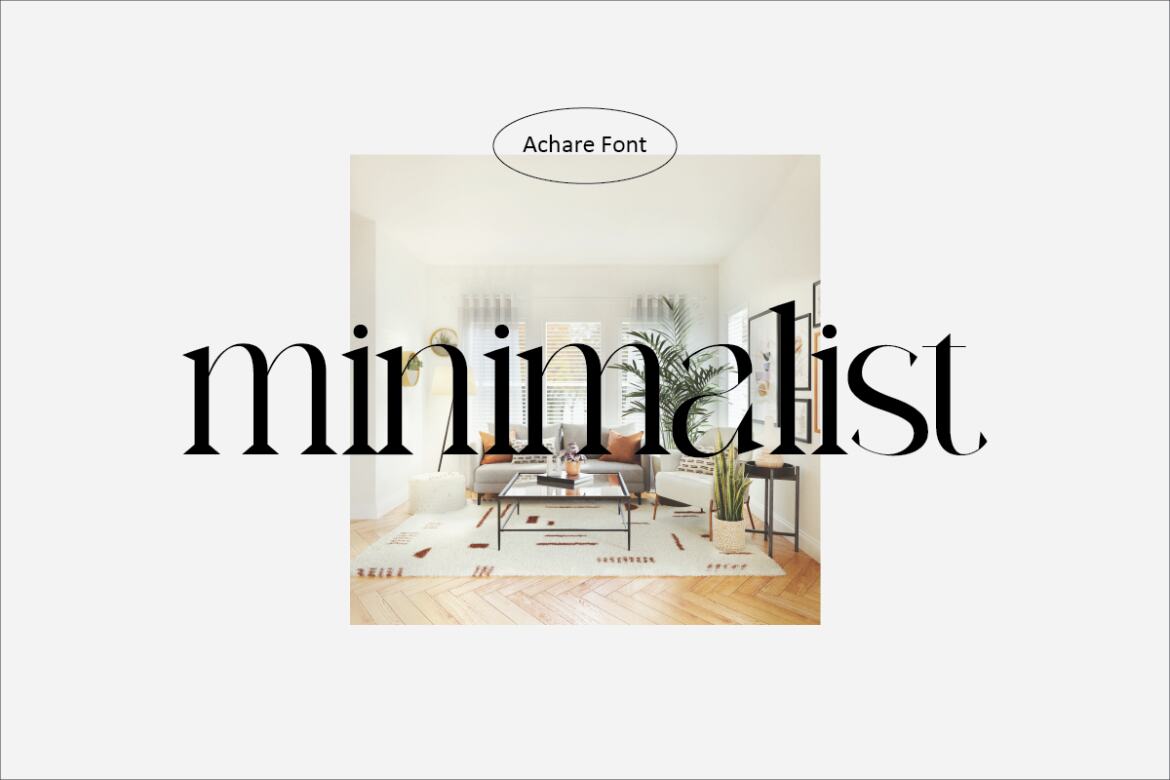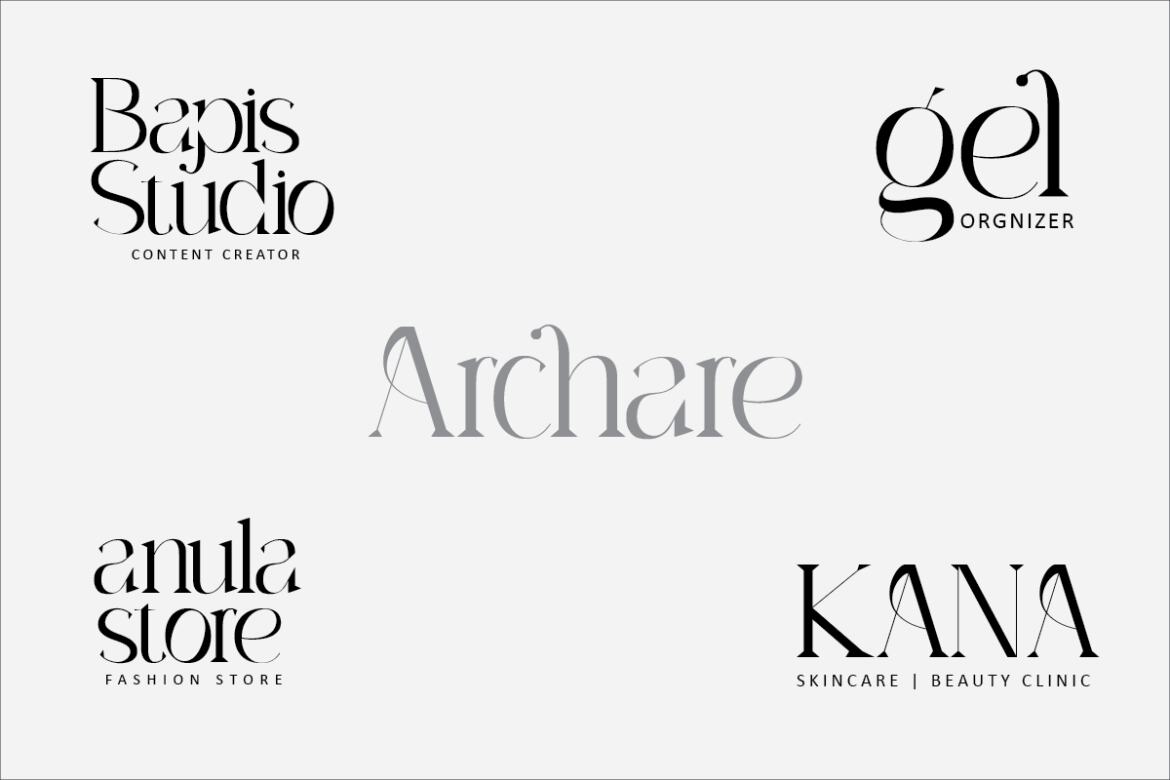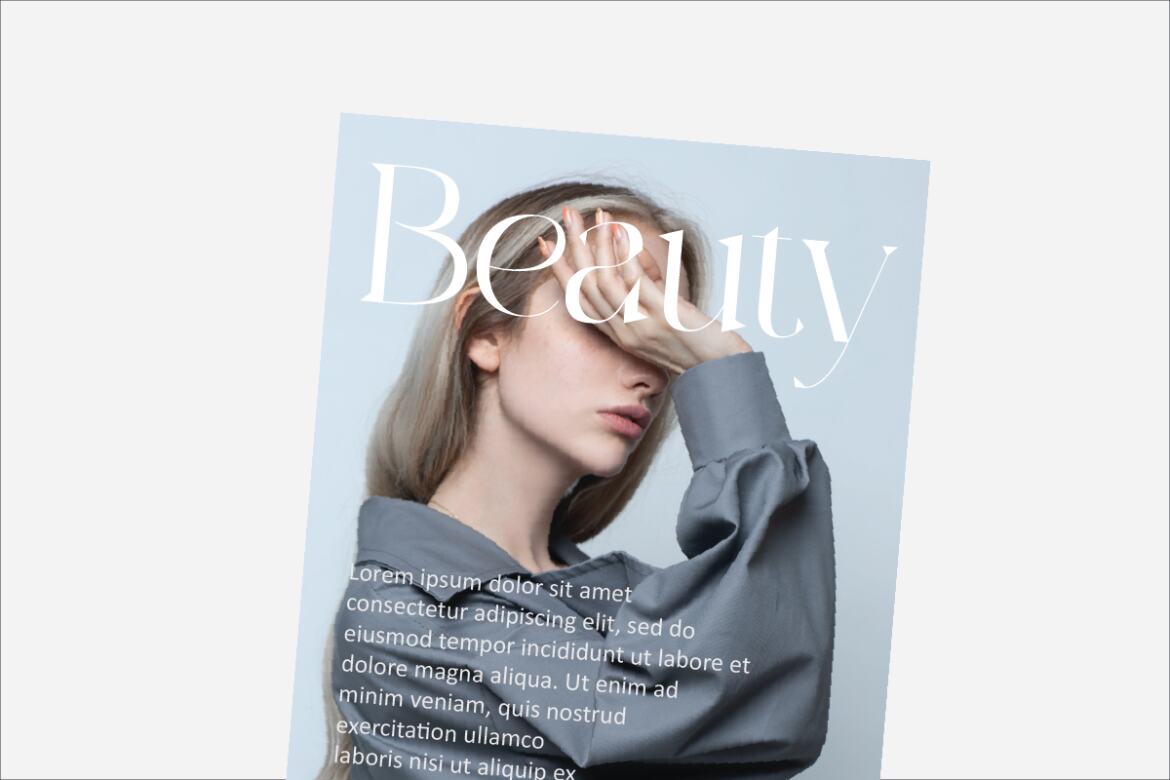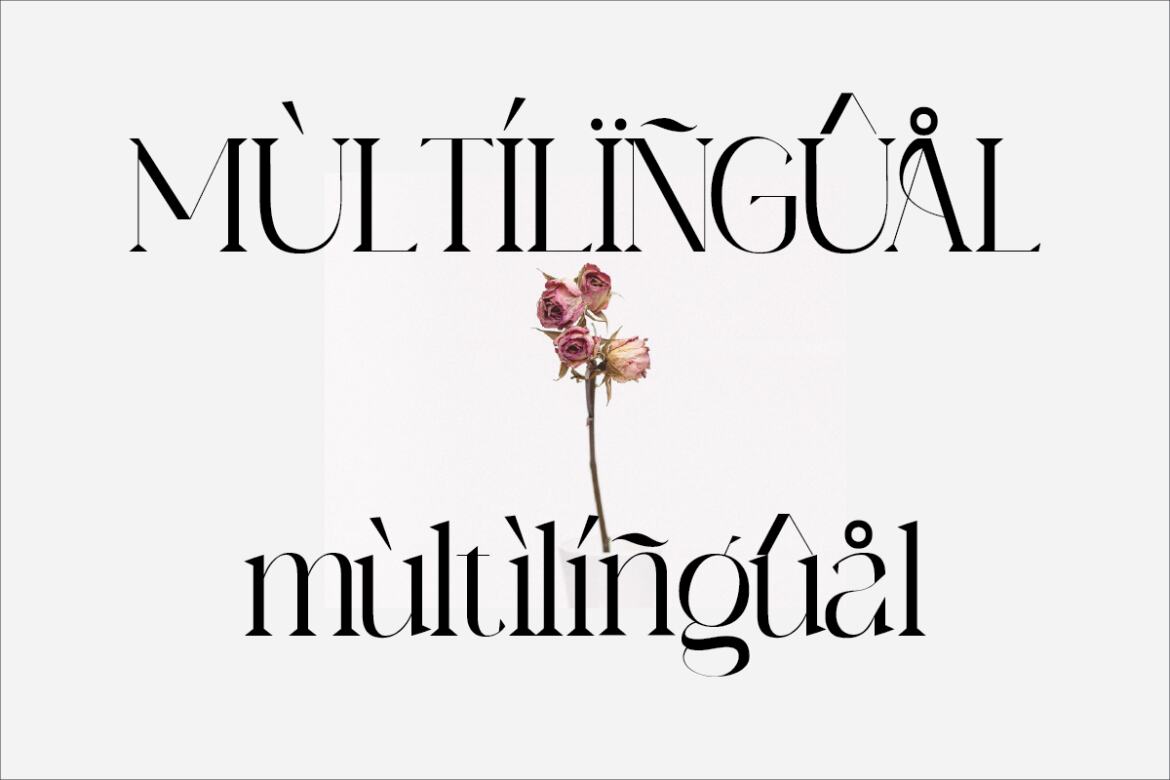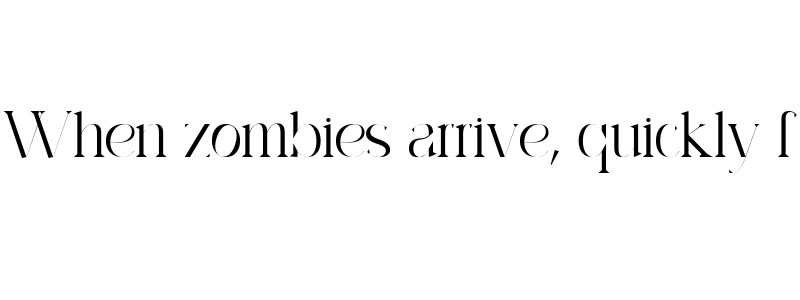
Archare FREE Modern Serif Font
Archare Modern serif Font typeface with beautiful alternate, special glyphs, ornament and multilingual support. It's a very versatile font that works great in large and small sizes. Perfect for editorial projects, Logo design, Clothing Branding, product packaging, magazine headers, or simply as a stylish text overlay to any background image.
• the features uppercase, lowercase, numeral, punctuation, symbol, alternate